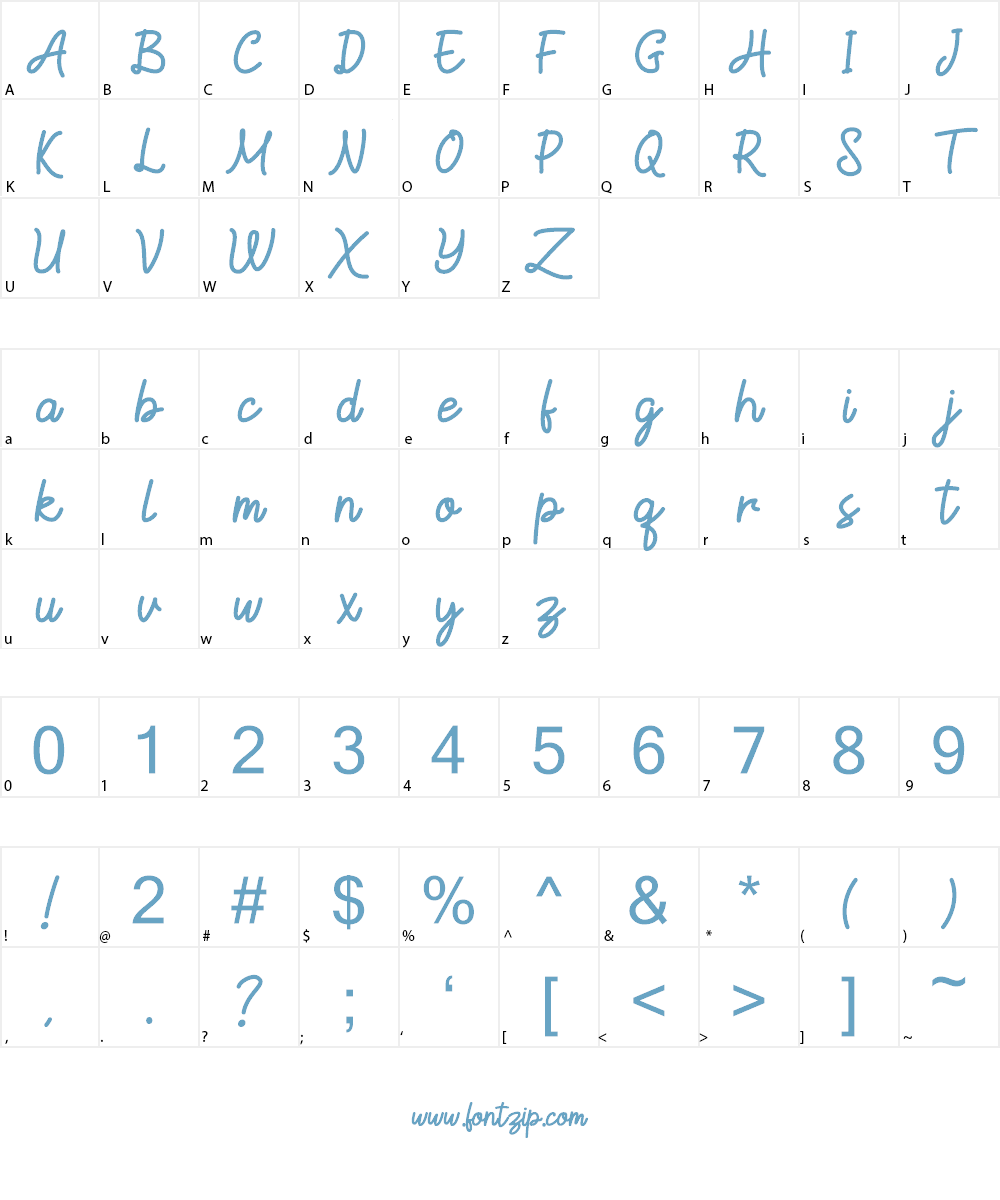
Presenting Slait, the idea of taken the word "slide" .Because I previously made several slideshow projects on other platforms
Slait Monoline is a modern script. Font with love useful for you who needs a typeface for headline, logotype, special event, travel promo, fashion event, apparel, invitation, branding, packaging, advertising etc. This typeface is comes in uppercase, lowercase, punctuation, numeral, ligatures and alternate.